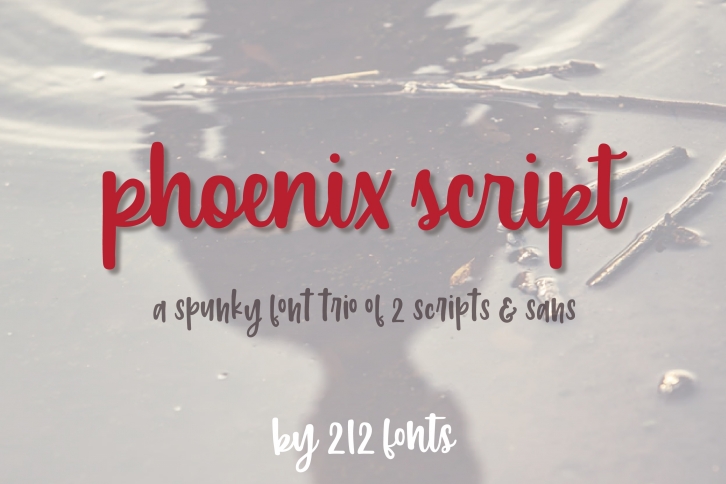
212 Phoenix Wild Trio of 2 scripts and sans family is a trendy and unique font with an authentic style. It was designed by 212 Fonts and it's a great choice for creative people who need such a font. It was released on May 21, 2019 and the file size is 18.6 MB. 212 Phoenix Wild Trio of 2 scripts and sans family will add an organic vibe to any design idea!